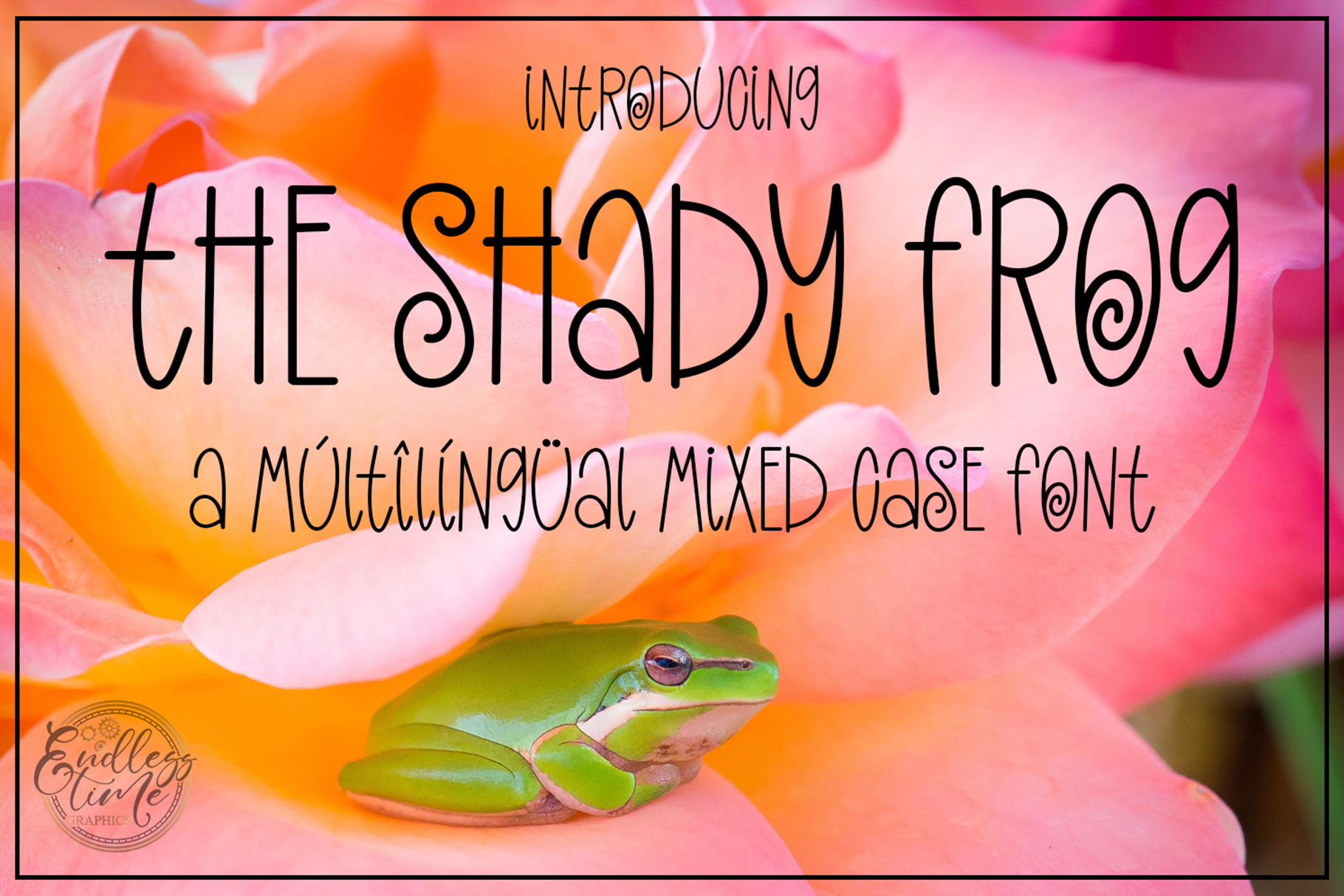
The Shady Frog - A Multilingual Font
The Shady Frog is a handwritten, mixed-case font that supports multiple languages. All characters were drawn in Procreate, vectorized in Illustrator, and cleaned/finalized in Glyphs.